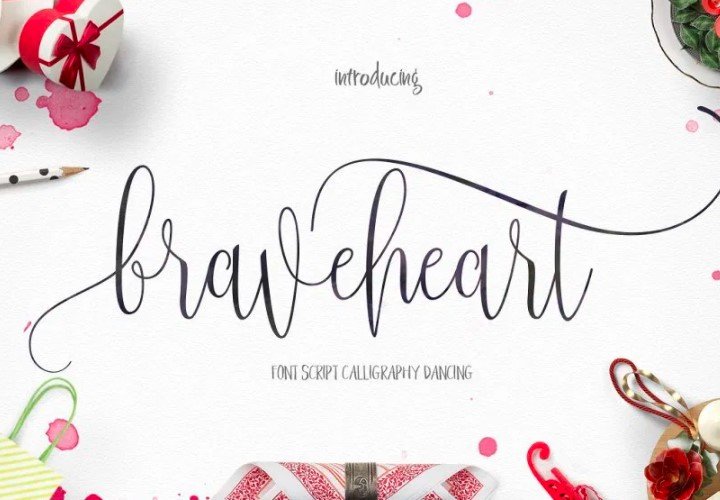
The font we’re sharing with you today is the excellent, popular scripted and calligraphic typeface known as Braveheart Font. This modern scripted signature and calligraphic typeface was designed with careful strokes, featuring uniquely shaped characters.
View Of Braveheart Script Font
Before scroll down, lets see the example of this typeface which is best for pairing that you can used it with the combination of neoteric font which we provided by showing all the characters and glyphs contains in this font.
This is brilliant signature as well as a scripted typeface that you can used for making calligraphic designs easily. It has natural good looking handy character set which will make your designs beautiful, attractive, elegant and stylish.
The font contains everything that you need to developed the outstanding designs, It is perfectly fine to work with the combination of athelas font.